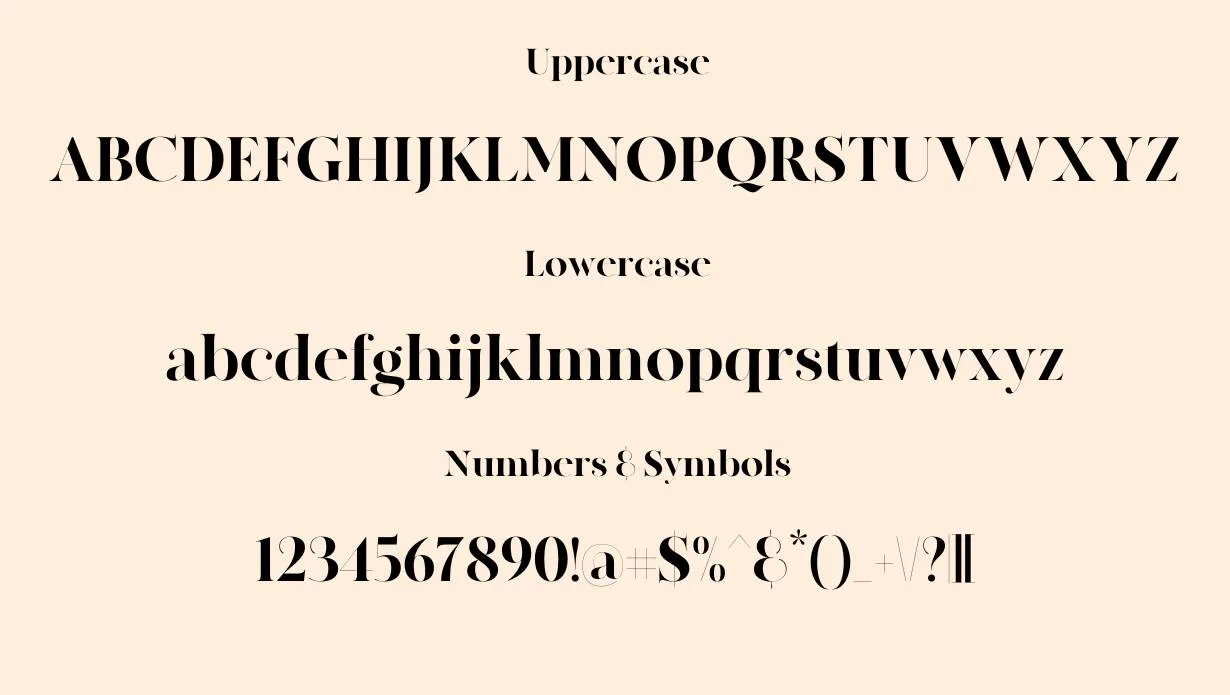
Made Canvas Font is like a stroke of artistic expression for your words. Each letter appears handcrafted, part of a unique masterpiece. When you use Made Canvas Font, it’s like a canvas waiting for an artist’s touch. Imagine the beauty of brushstrokes on a painting, giving your words an artistic and individualized vibe.
Choose Made Canvas Font when you want your writing to have the creative charm of a hand-painted work of art, making it stand out with a touch of creativity.
| Name | Made Canvas Font |
| Designer | Maxim Schepin and Denis Schepin |